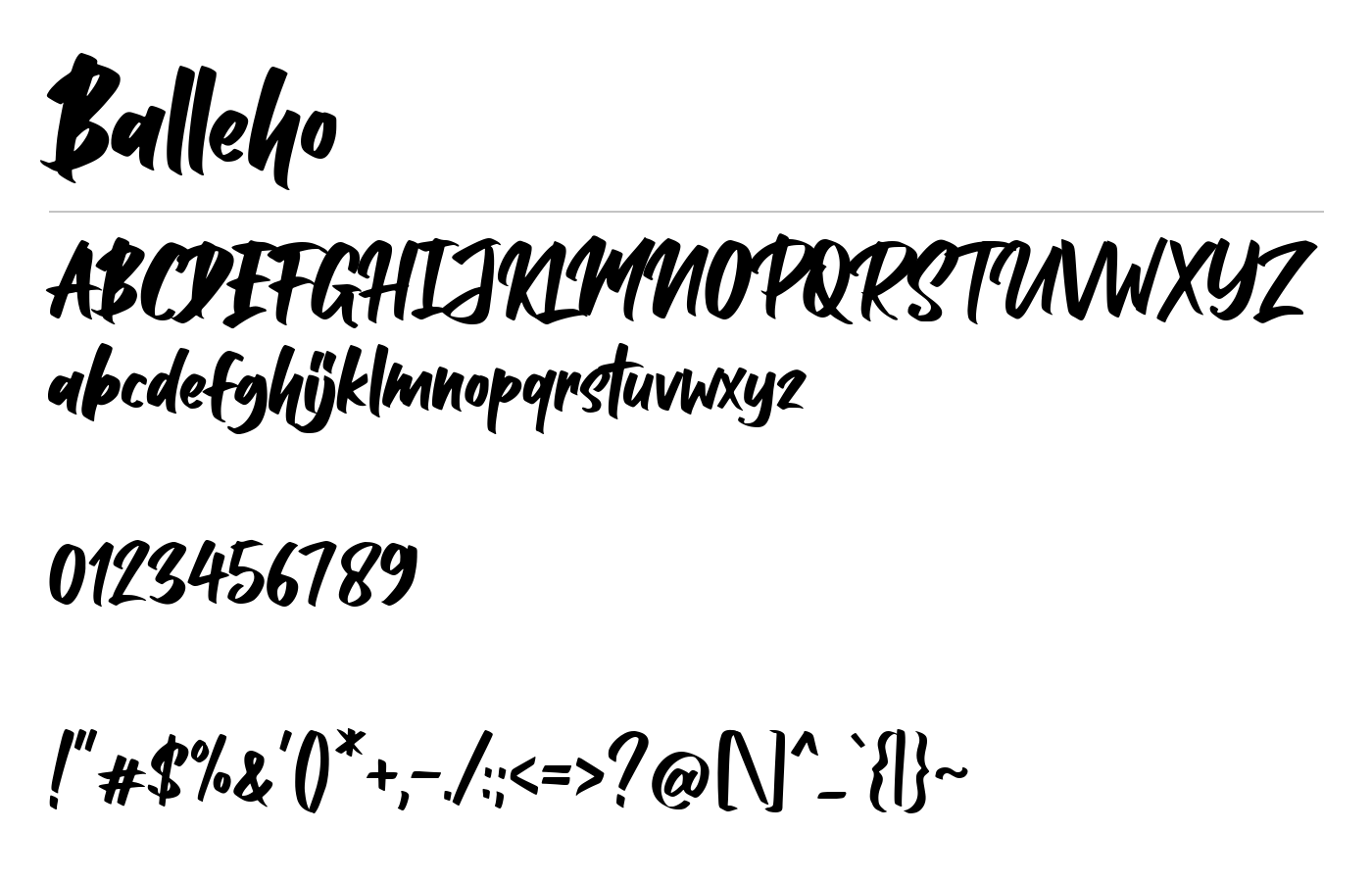
Balleho is a bold, brush-style script font with a lively and energetic personality. Its thick, dynamic strokes and hand-painted feel create a casual yet strong impression, perfect for creative branding, logos, and eye-catching headlines. This font brings a vibrant, youthful energy that works well in fashion, packaging, and expressive editorial designs.
Balleho Font
About Balleho Font
| Font family | Balleho Font |
| Designer | Wahyu Andi Prasetiyo |